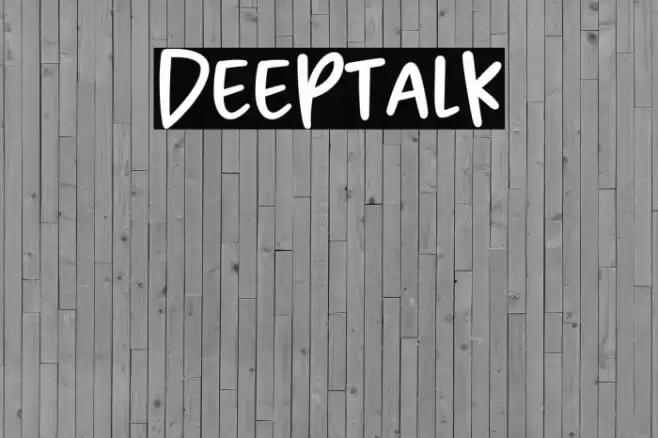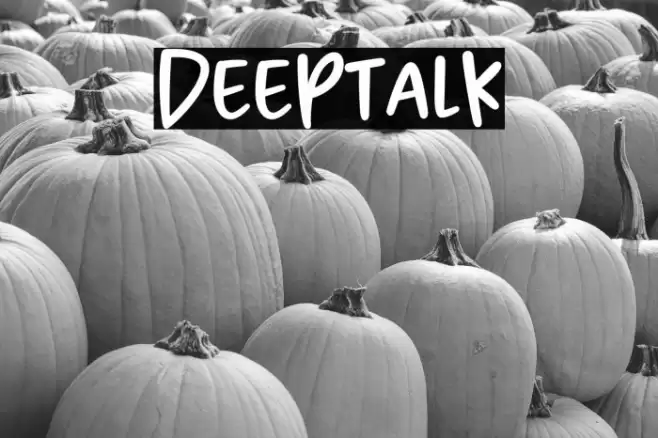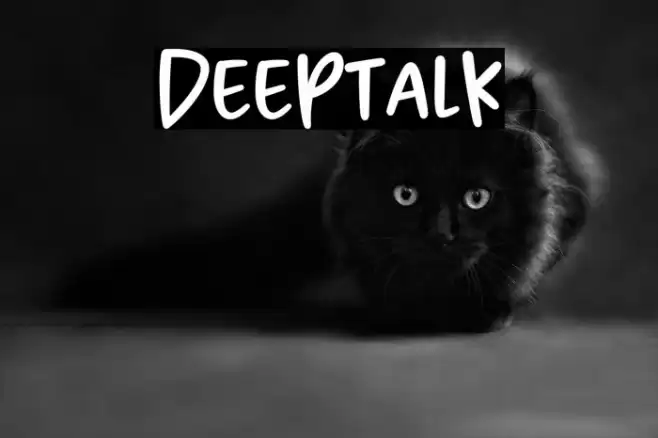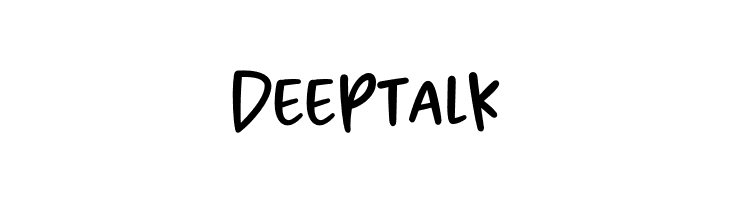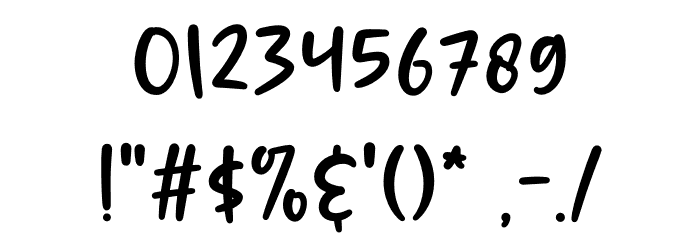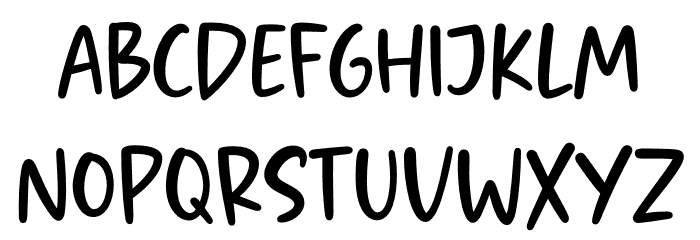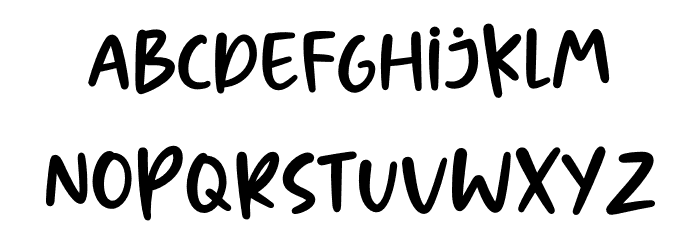
Deeptalk Font
Deeptalk Description
A playful, casual handwritten font with rounded, slightly irregular strokes and a friendly appearance. The characters are upright with consistent thickness, giving it an approachable and informal feel.
Casual handwritten font with rounded, playful strokes.
- Proposed Projects: Children's books, greeting cards, informal posters, social media graphics, educational materials.
- Category: Handwritten
- Overall Style: Playful, Informal, Friendly
- Use Case: Headlines, Short text, Quotes, Posters